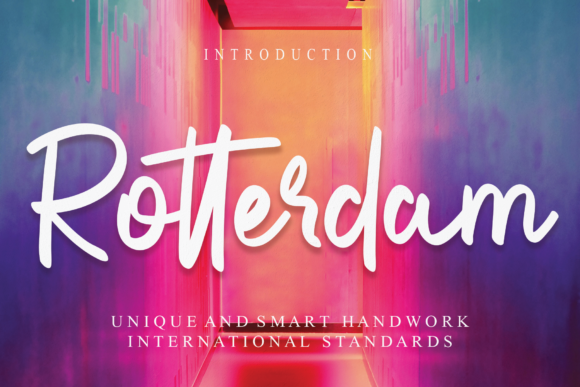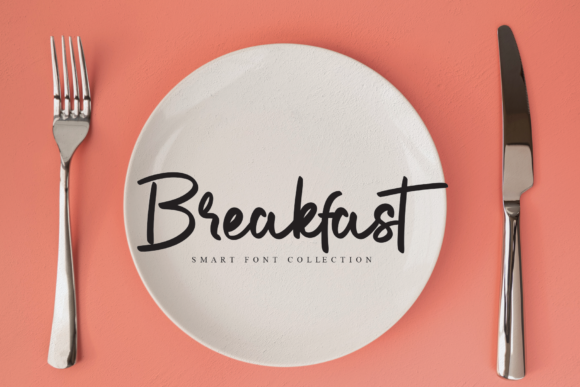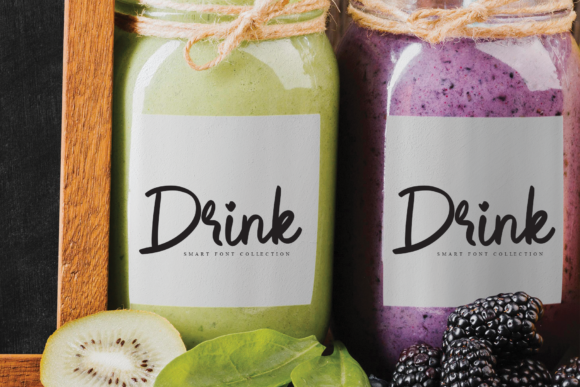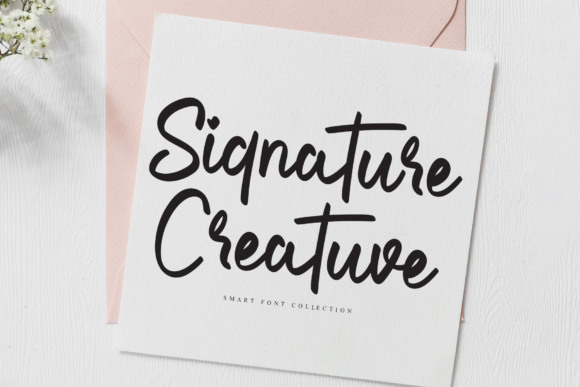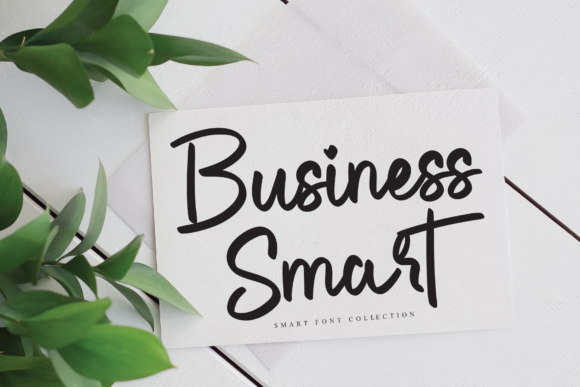
Rotterdam Font
About Rotterdam Font
Rotterdam is a delicate and elegant handwritten font. Its distinct and well rounded letters make this font a masterpiece. Fall in love with its incredibly versatile style and use it to create spectacular designs!